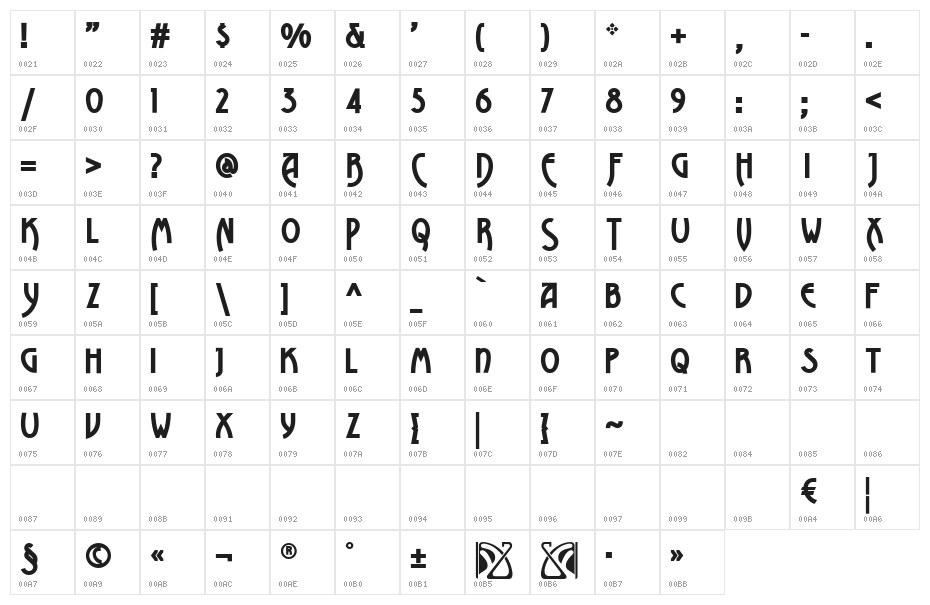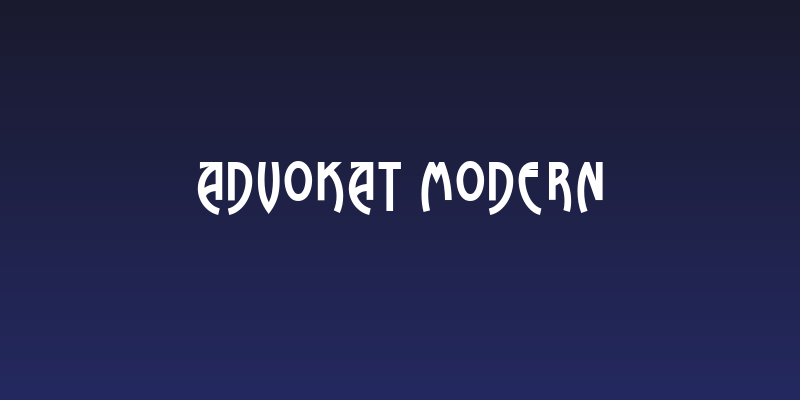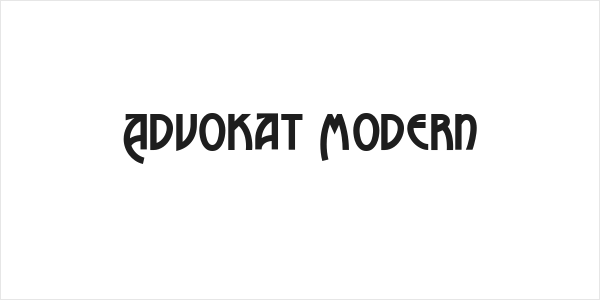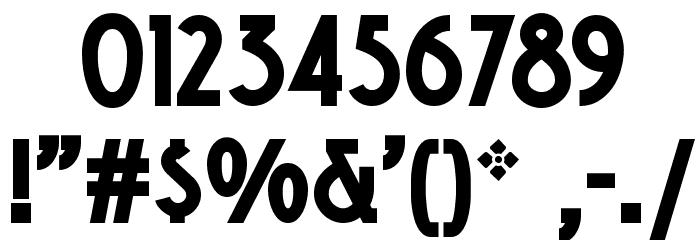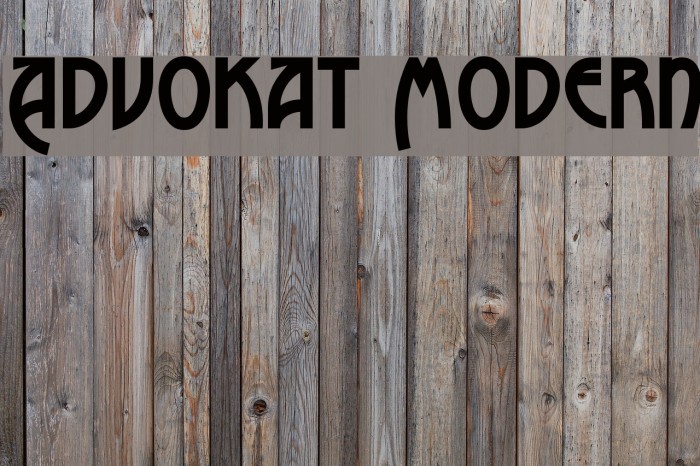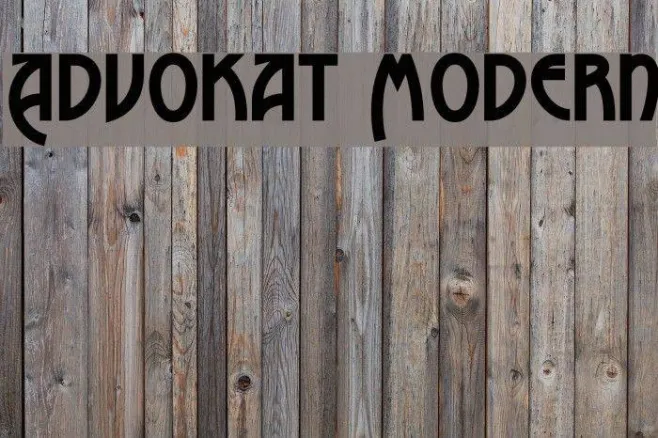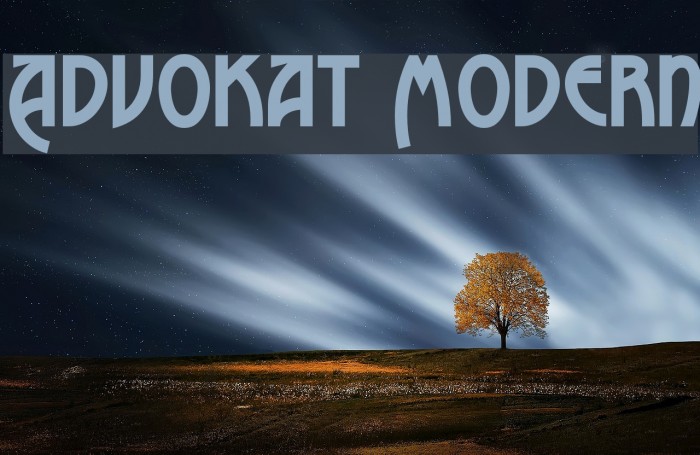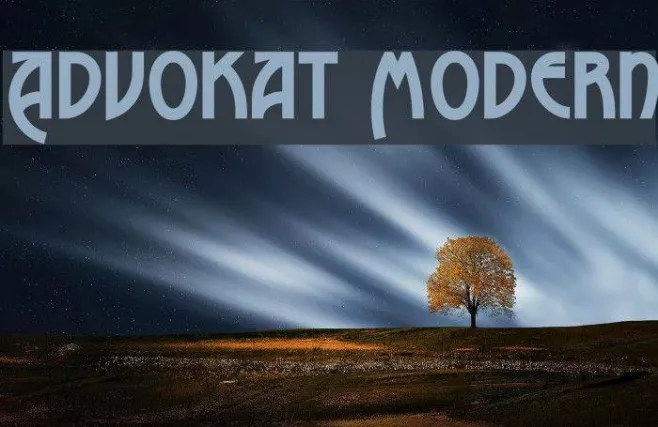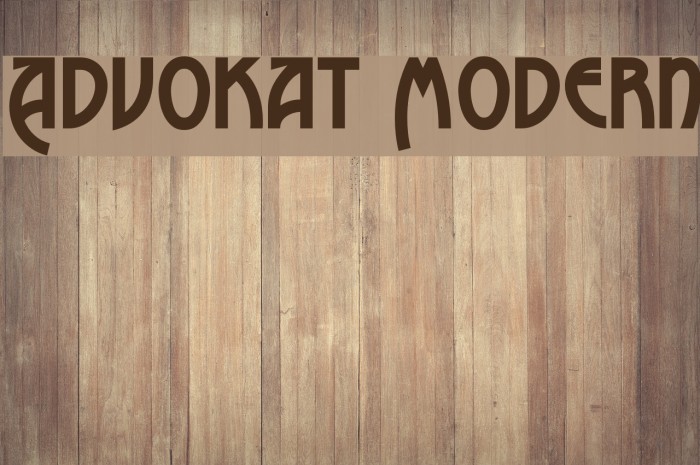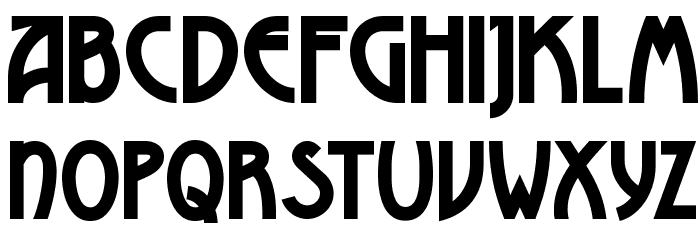
Advokat Modern Font
Advokat Modern Description
This font features a bold and striking design with a modern twist. The characters are crafted with sharp, angular lines and a slight curvature that adds a unique flair. The uppercase letters are particularly prominent, showcasing a strong presence with their geometric shapes. The lowercase letters maintain a consistent style, providing a harmonious look across the board. Numbers and special characters are designed with the same attention to detail, ensuring a cohesive appearance. This font is ideal for making a statement, whether in headlines or branding materials.